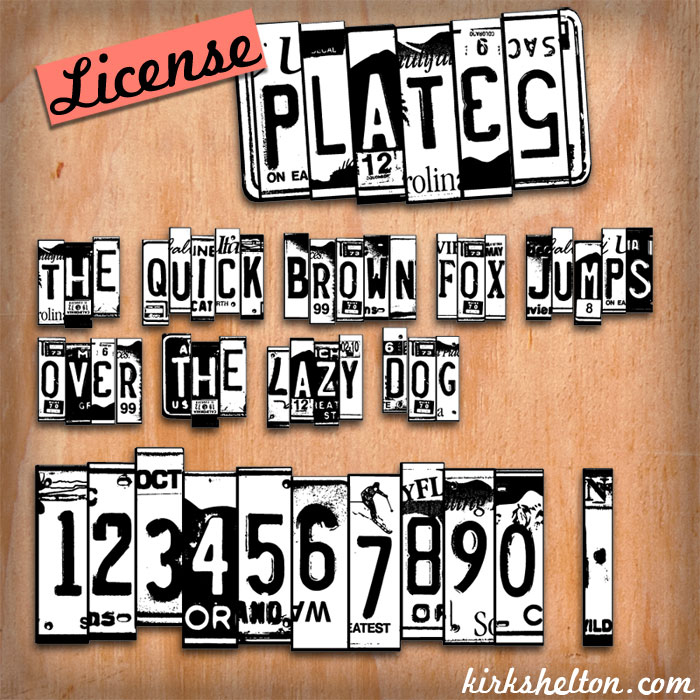
License Plates by Kirk Shelton is a free decorative display font that builds each letter into a mismatched stack of vintage license plate fragments. Tall, irregular forms, cropped state names, registration numbers, scuffs, and shifting borders give the alphabet the collected look of plates salvaged from different cars.
Packaging is an especially convincing medium for its roadside Americana and found-object texture, particularly on barbecue sauces, craft drinks, and garage-themed products. The same cut-and-assembled lettering can turn event posters and automotive merchandise into part of the graphic concept rather than ordinary text. In editorial design, it suits travel features or motoring stories that benefit from a ready-made license plate collage.